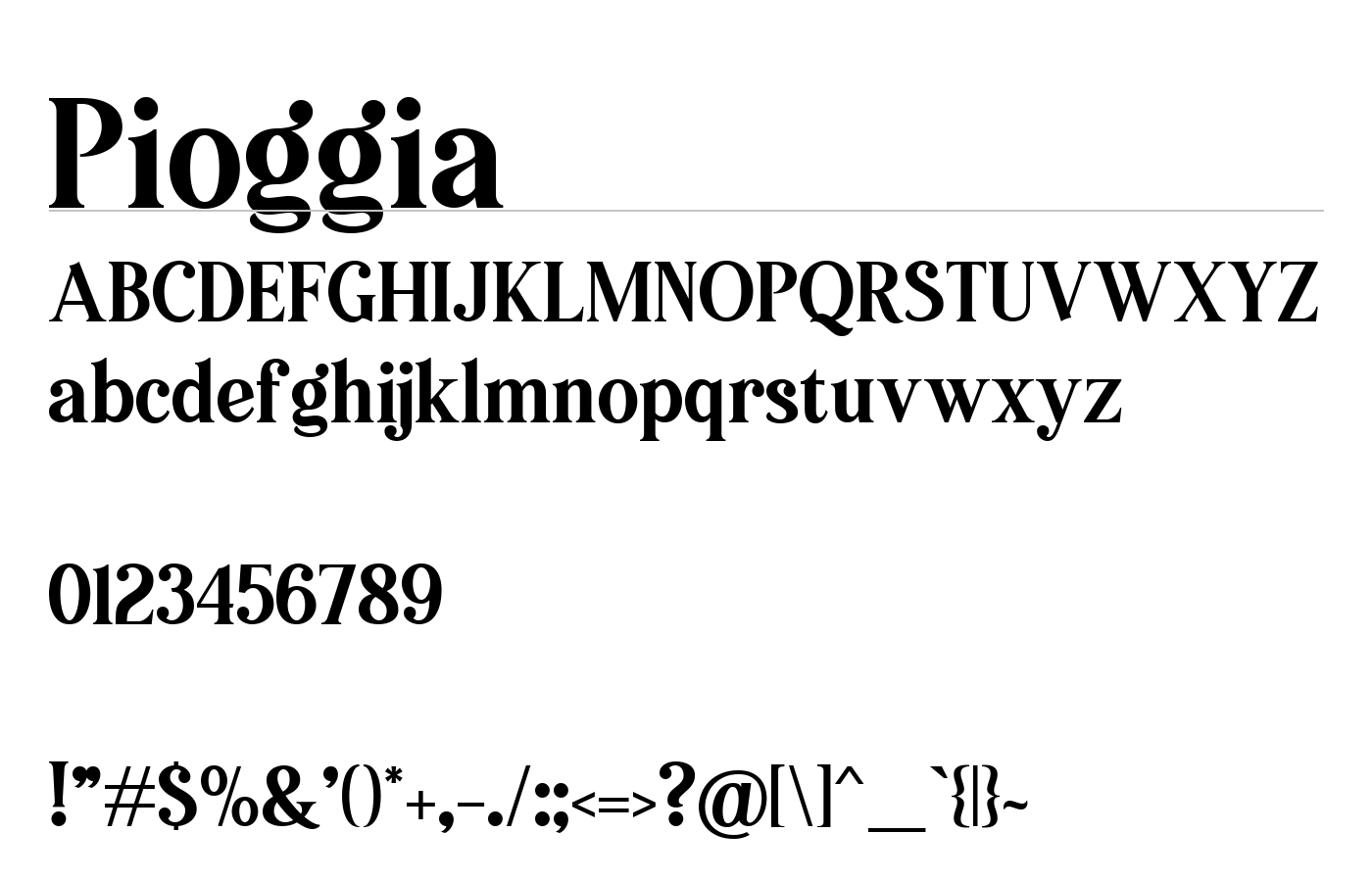
Pioggia is a refined serif font characterized by its high contrast between thick and thin strokes and elegant bracketed serifs, giving it a sophisticated and classic appearance. Its moderate x-height and distinctive letterforms, such as the double-story 'g' and strong, slightly curved terminals, combine to create a stylish yet readable typeface ideal for luxury branding, editorial design, and upscale packaging. This font conveys a sense of tradition and elegance while maintaining a modern clarity that works beautifully in headlines and display text.
Pioggia Font
About Pioggia Font
| Font family | Pioggia Font |
| Release date | 2019-04-22 |
| Designer | Twicolabs Fontdation |